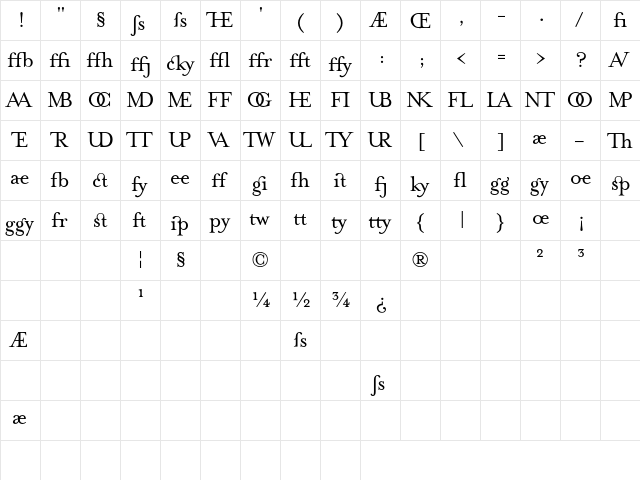
MrsEavesJustLig Regular Font Preview
MrsEavesJustLig Regular
Design Context for MrsEavesJustLig Typeface
MrsEavesJustLig offers clean, dependable letterforms without strong stylistic allegiance, making it a practical choice for designers who need flexibility.